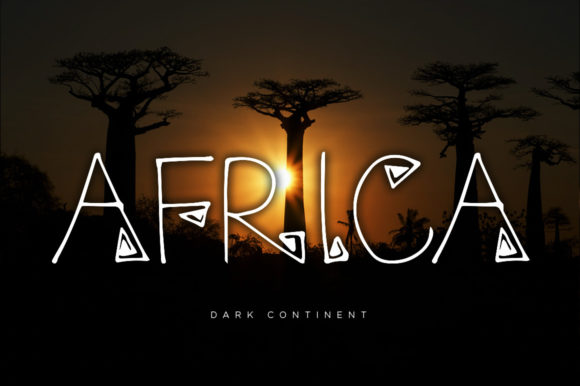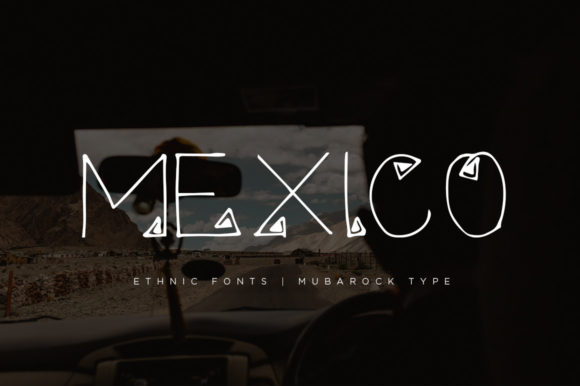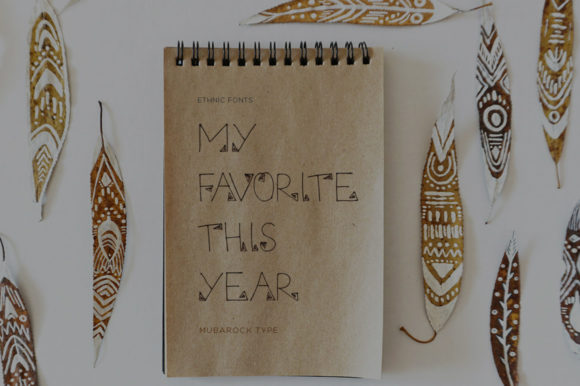
Introduction to Myethnic Font
Have you ever stared at a blank canvas, trying to bring a creative project to life, only to be stuck by the perfect font? It’s a frustrating moment that many designers can relate to. But what if you could find a font that not only sparks inspiration but also adds an authentic touch to your design?
Enter the Myethnic Font, a unique and captivating display font that brings a touch of ethnic nuance to your projects. With its natural feel and impeccable kerning, this font is sure to become a valuable addition to your design resource. Whether you’re working on a high-quality brochure, a website with a transparent background, or a creative campaign, the Myethnic Font is the perfect companion to elevate your design game.
Key Features of Myethnic Font
- High-quality design: Myethnic Font is designed to meet the needs of creative projects, offering a unique and elegant look.
- Transparent background: This feature allows for seamless integration with various design elements, making it perfect for graphic design, digital art, and other creative projects.
- Perfect for digital and print projects: With its high-resolution design, Myethnic Font is suitable for both digital and print projects, including websites, magazines, and brochures.
- Unique characteristics: Myethnic Font features a distinctive and stylish design, making it an excellent choice for designers who want to add a touch of elegance to their creative projects.
- High-resolution design: Myethnic Font is designed at 300 DPI, ensuring crisp and clear text in various sizes and resolutions.
Honest Review: Myethnic Font
As a designer, I’m always on the lookout for high-quality design resources to elevate my creative projects. Recently, I had the opportunity to try out the Myethnic Font and here’s my honest review.
What works well: ✨ I was impressed by the elegant and sophisticated design of this font. It’s perfect for creating a professional and polished look in any creative project. The font is available for free download, which is a huge bonus for designers on a budget. Additionally, the font has a transparent background, making it easy to overlay on different backgrounds.
- Perfect for: logos, business cards, brochures, and any other design project that requires a touch of sophistication.
- Works well with: a variety of color schemes and design styles.
Limitations: ⚠️ While I love the design of the Myethnic Font, I did find it to be a bit limited in terms of font variations. If you’re looking for a font with a wide range of styles, you may want to look elsewhere.
Overall impression: I was pleasantly surprised by the quality and versatility of the Myethnic Font. It’s a great addition to any designer’s toolkit, especially for those working on creative projects on a budget.
Myethnic Font is a high-quality design resource ideal for creative projects. It offers a unique and elegant style, perfect for adding a touch of sophistication to your work.
Myethnic Font is ideal for a wide range of creative projects, including:
- Business cards and marketing materials
- Social media graphics and advertisements
- Presentation slides and reports
Does Myethnic Font have a transparent background?
No, Myethnic Font does not have a transparent background. However, the font is designed to be versatile and can be easily used in various design contexts, including those that require a transparent background. If you need a font with a transparent background, you may want to consider using a different design resource or modifying the font to suit your needs.